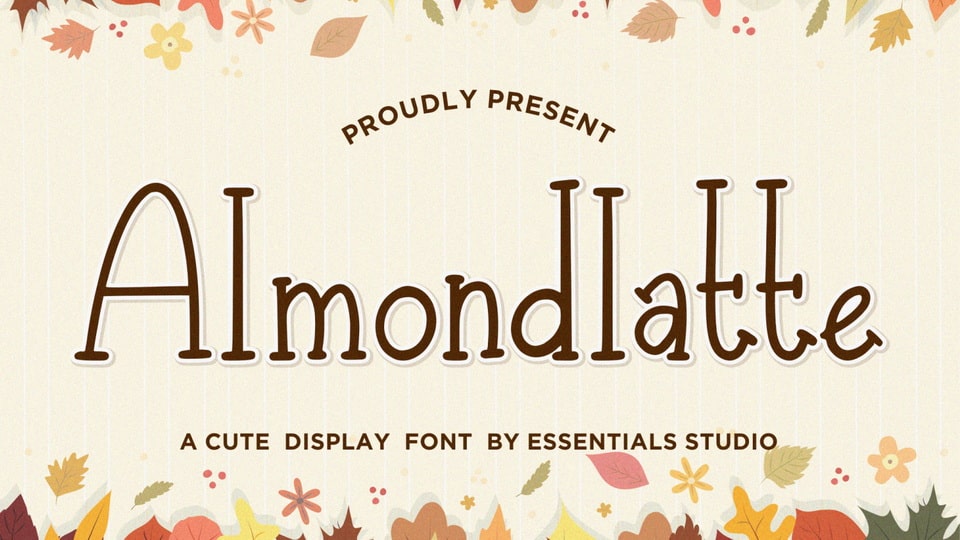
Download Almondlatte font, a cute handwritten typeface. Almondlatte is perfect for product packaging, branding project, magazine, social media, wedding, or just used to express words above the background.